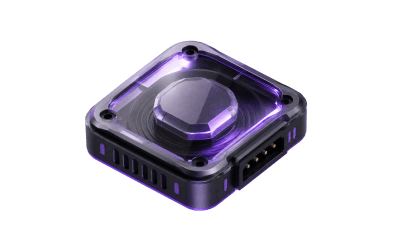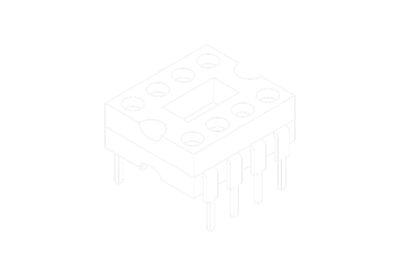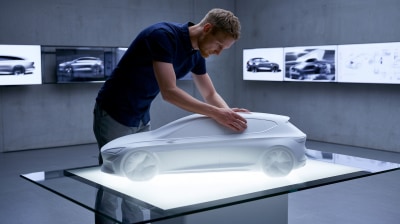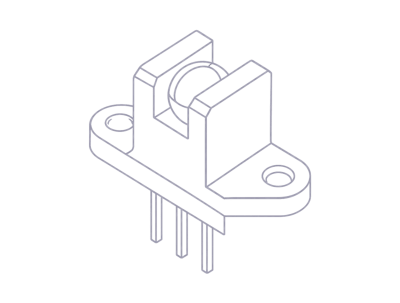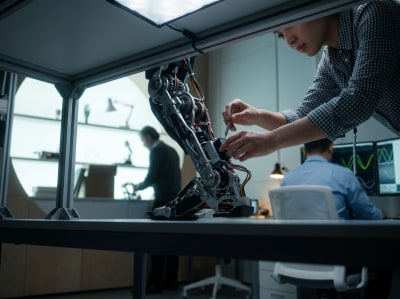
Partstack
by Clay Global
This rebrand effectively combines a technical aesthetic with approachability. The logo's dual-corner treatment—rounded for flexibility, beveled for stability—is a smart detail that speaks to its function. Using Aeonik for headlines and Inter for data-dense body text is a practical typographic choice for readability. I'd consider how their layered illustration system could be adapted to explain complex data relationships in other interfaces.